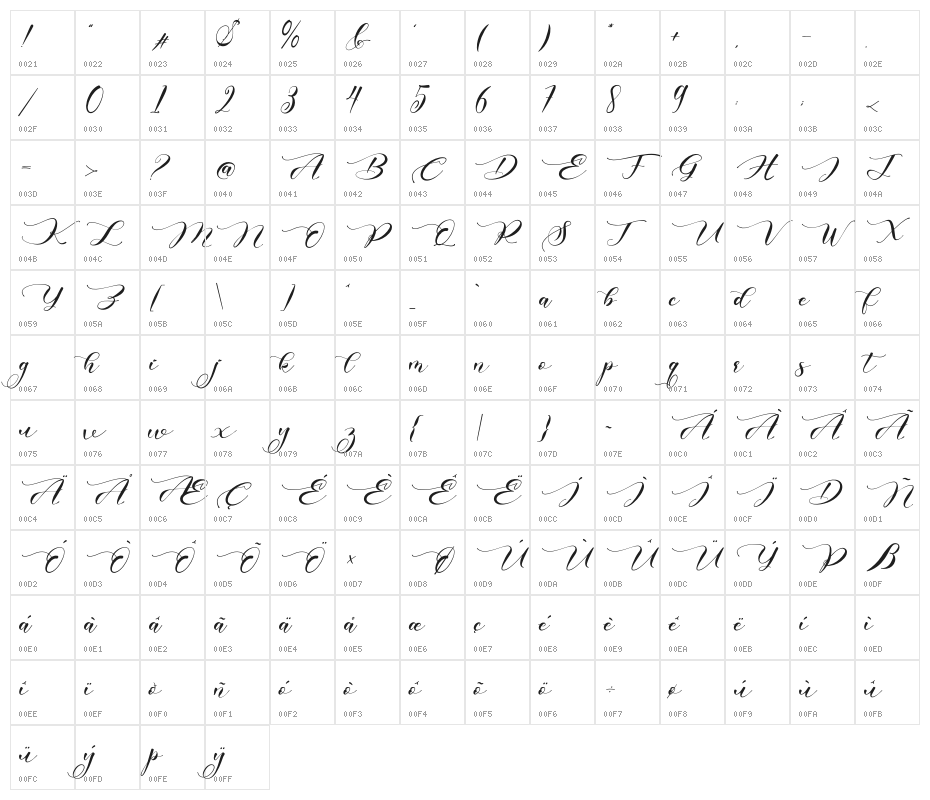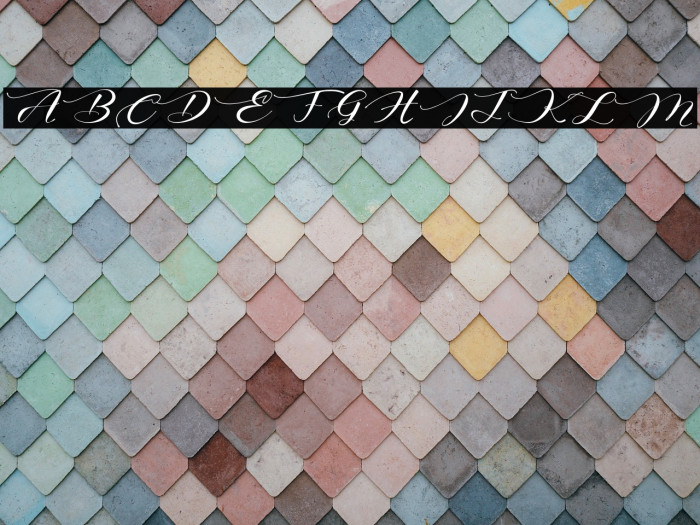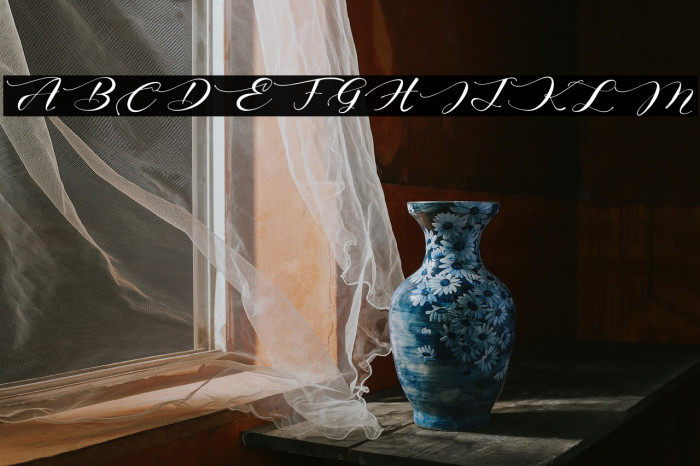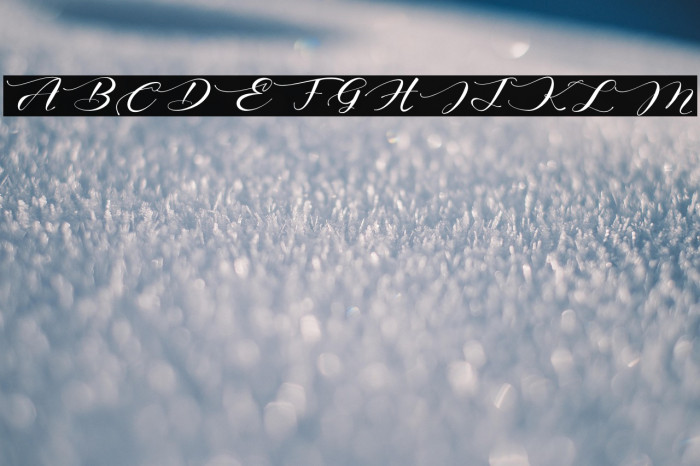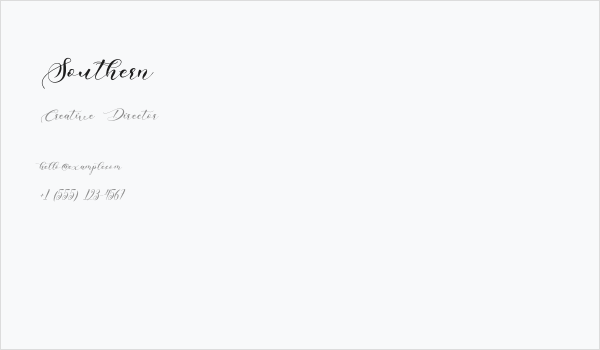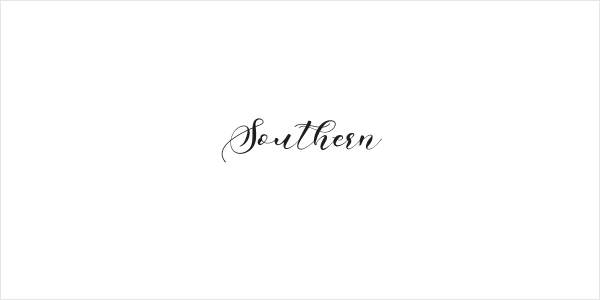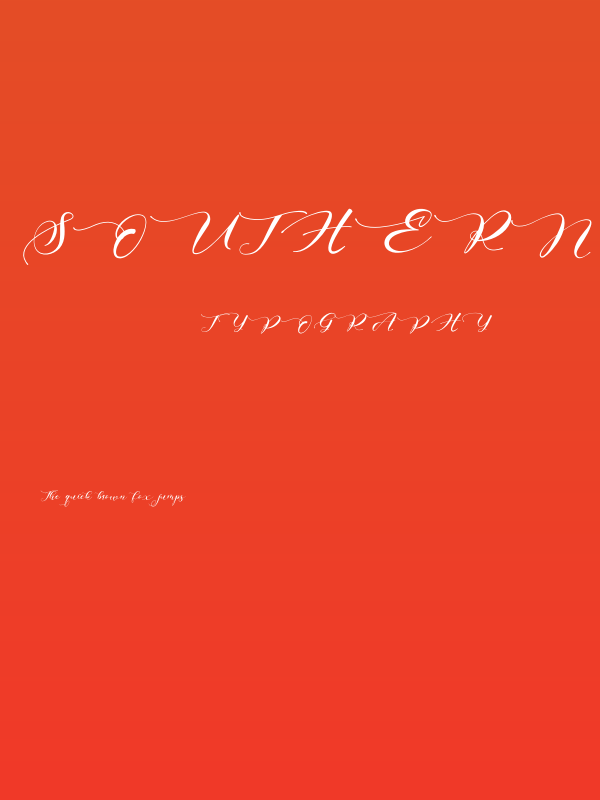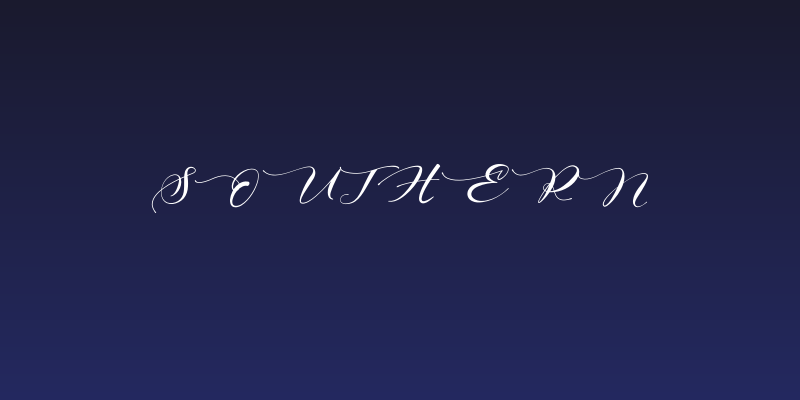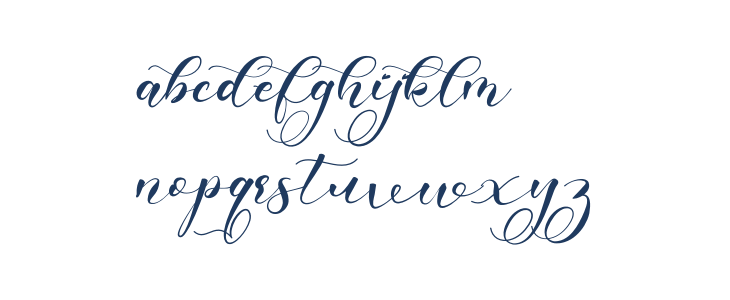
Southern Font
Southern Description
This elegant script font features flowing, interconnected letters with a graceful and sophisticated appearance. The uppercase letters are adorned with delicate swashes, adding a touch of flair and movement. The lowercase letters maintain a consistent style, with smooth curves and loops that enhance readability while maintaining an artistic flair. The numerals are stylish and complement the overall aesthetic, making them suitable for decorative purposes. Special characters are thoughtfully designed to match the font's ornate style, ensuring a cohesive look across all text elements.
| Overall Style | Elegant |
| Use Case | Headlines, Invitations, Branding |
| Proposed Projects | Ideal for wedding invitations, elegant branding, luxury packaging, and decorative headlines. |